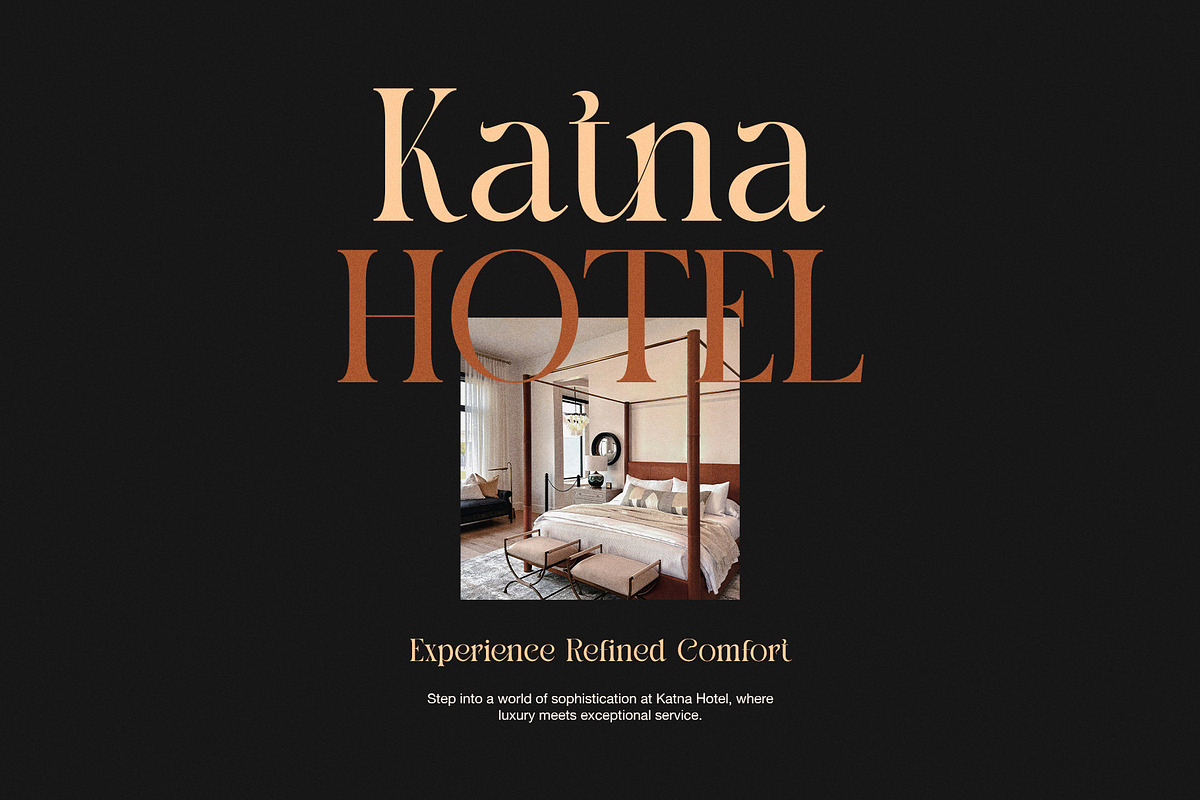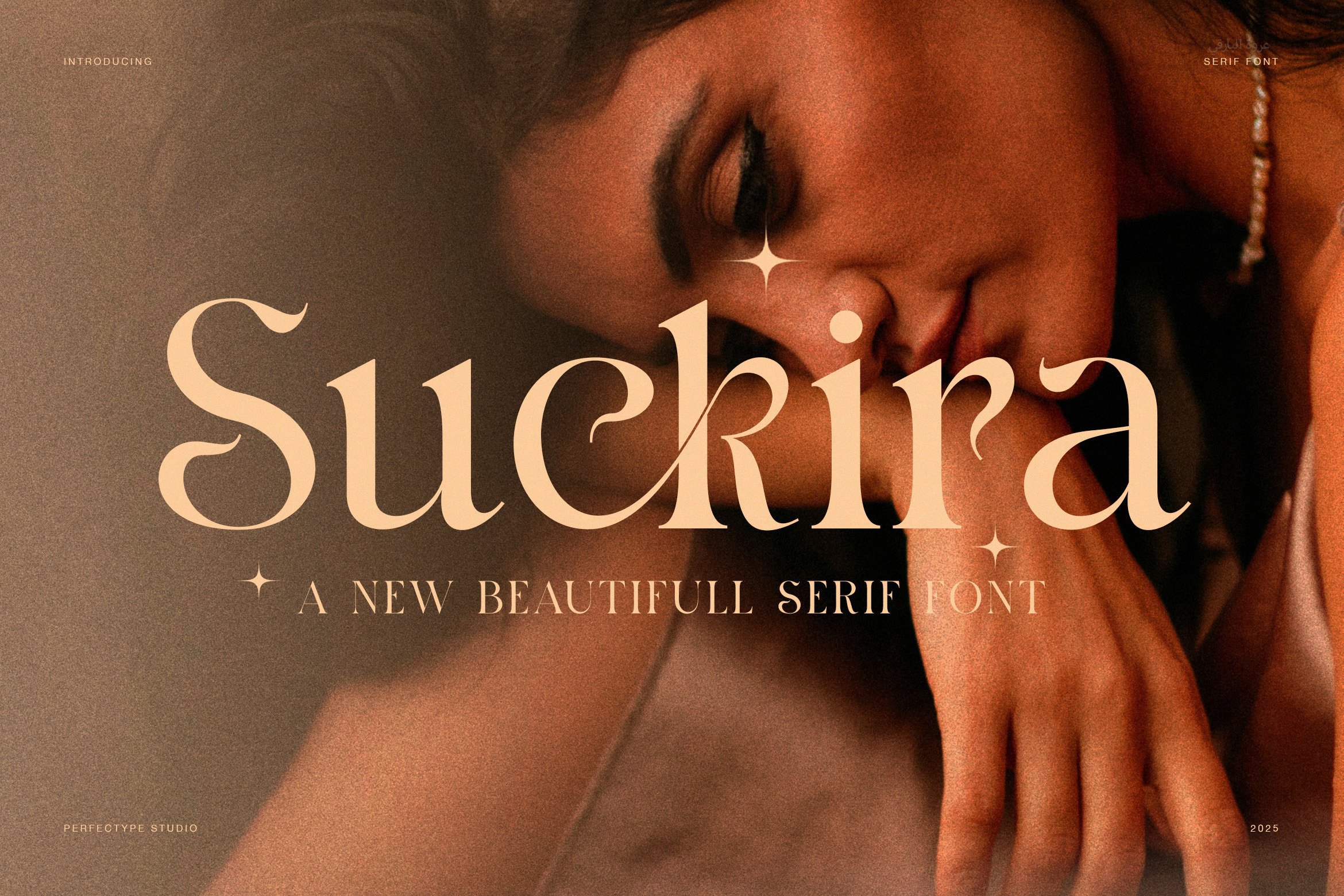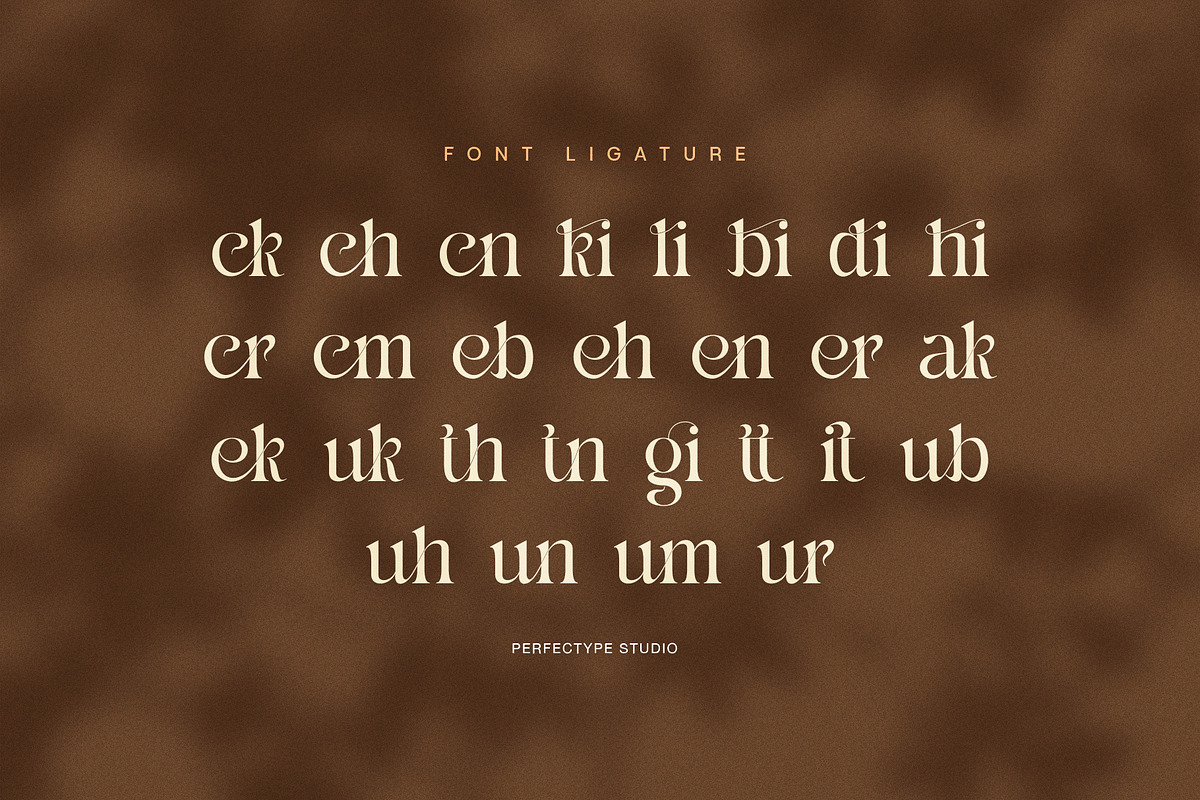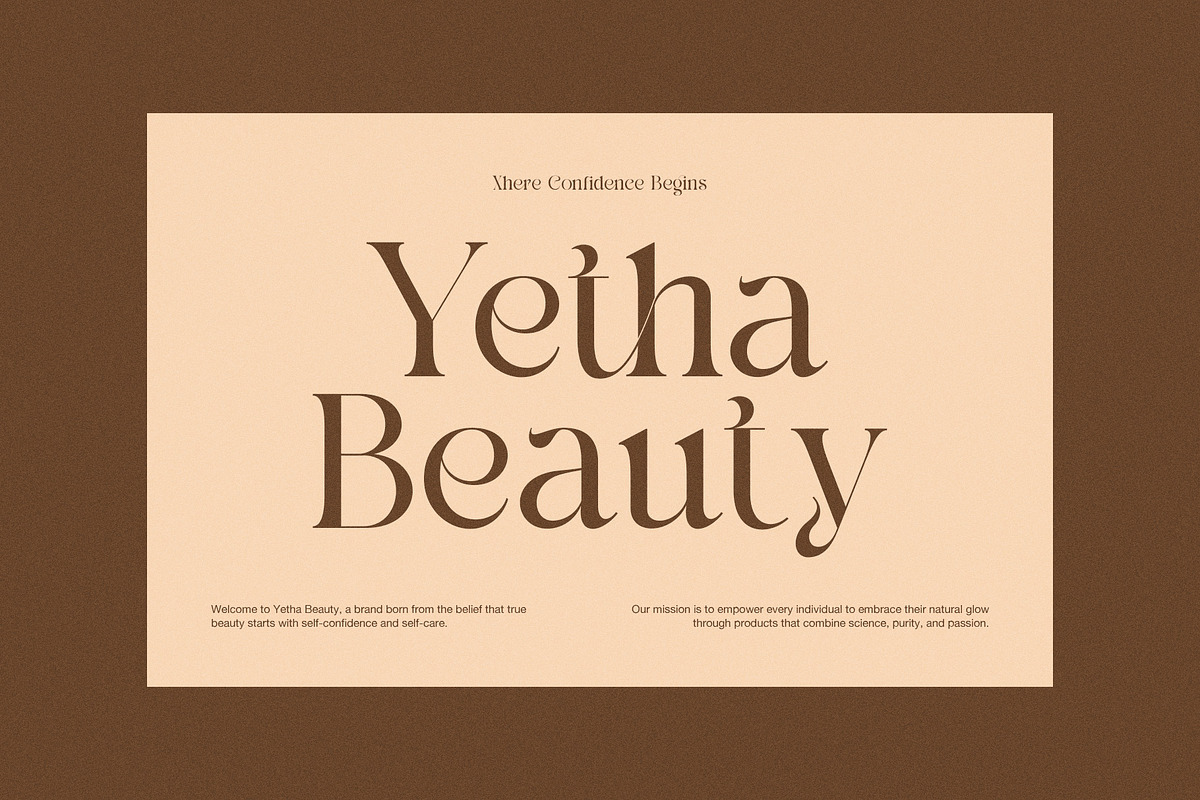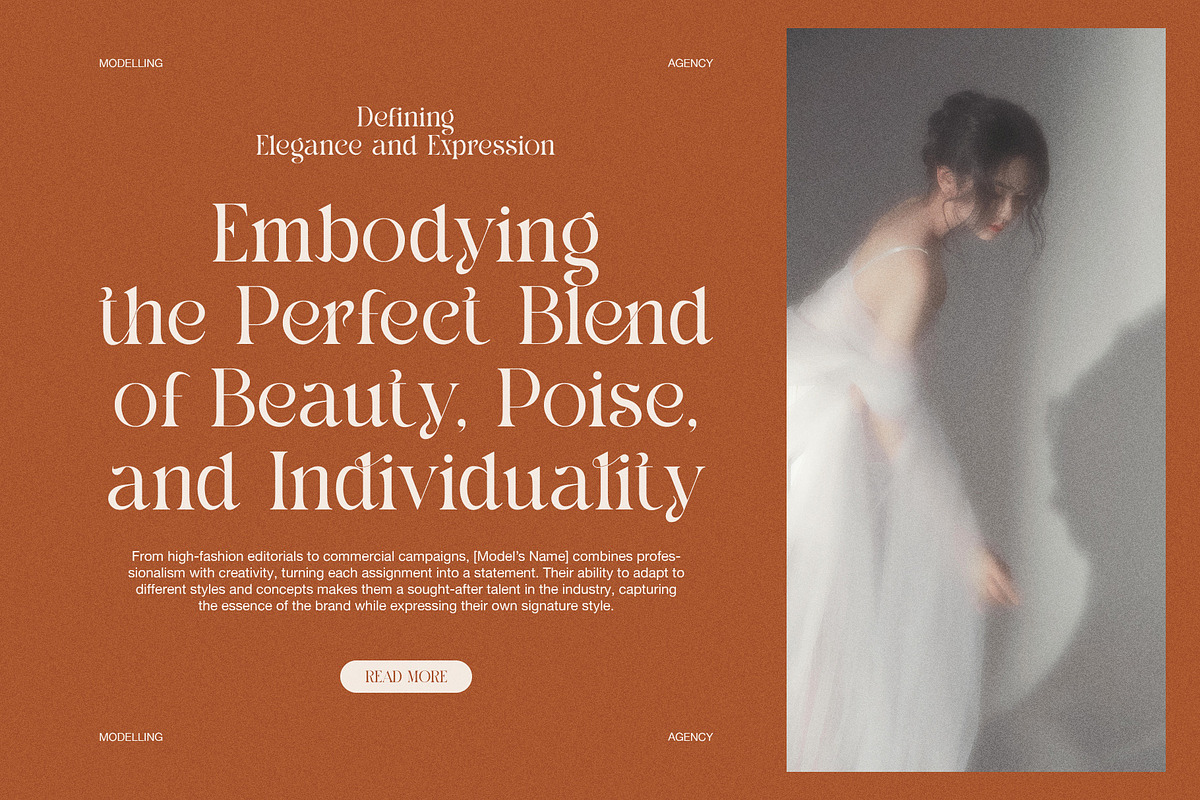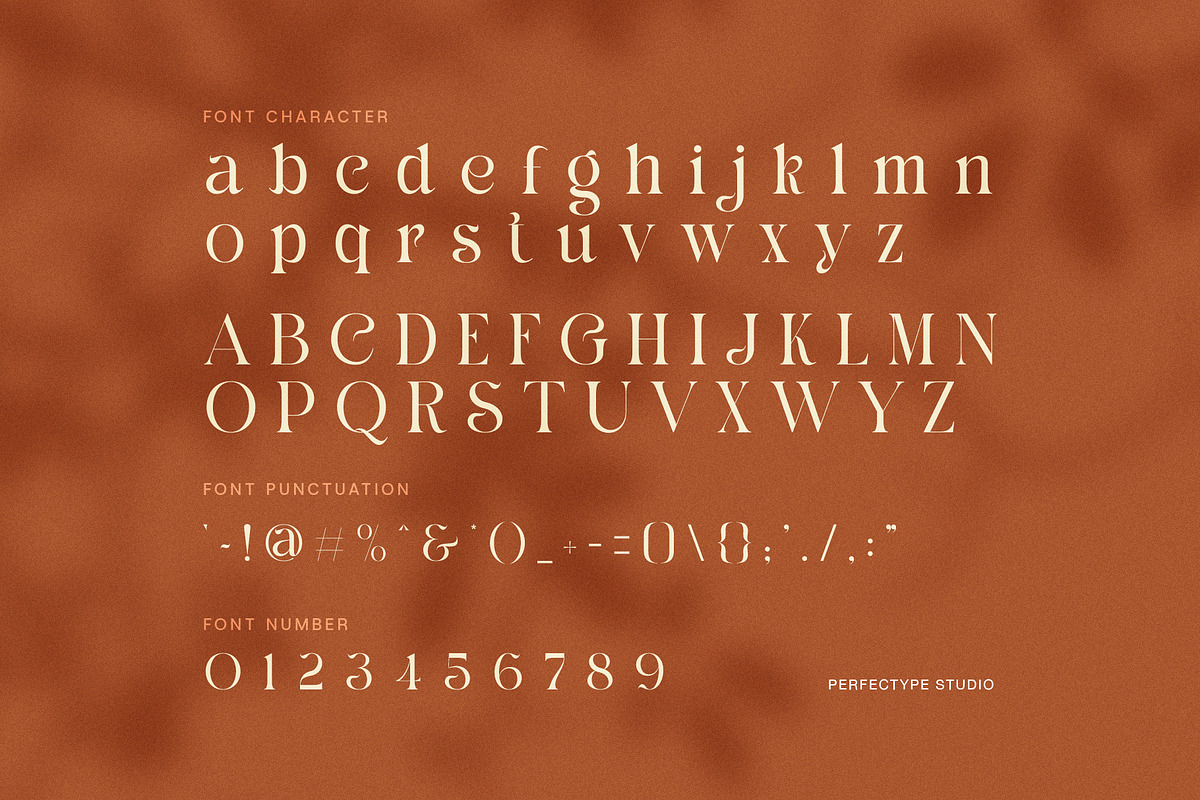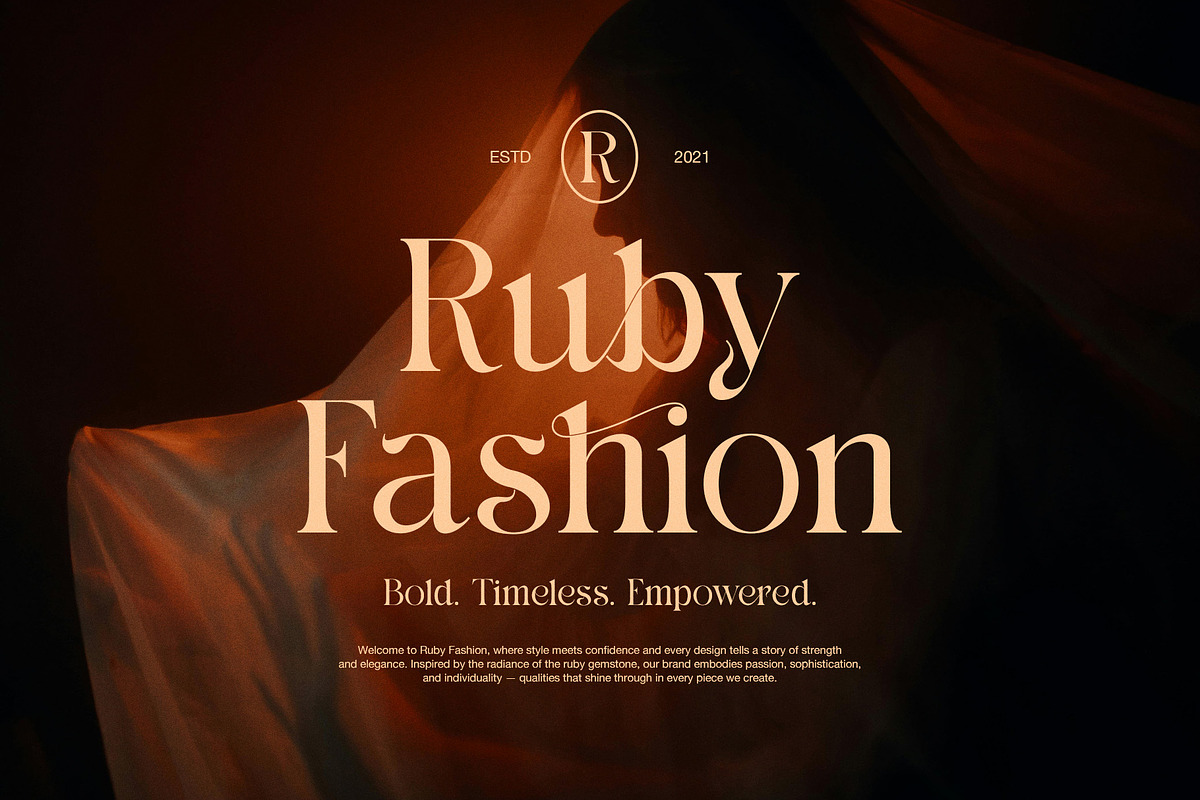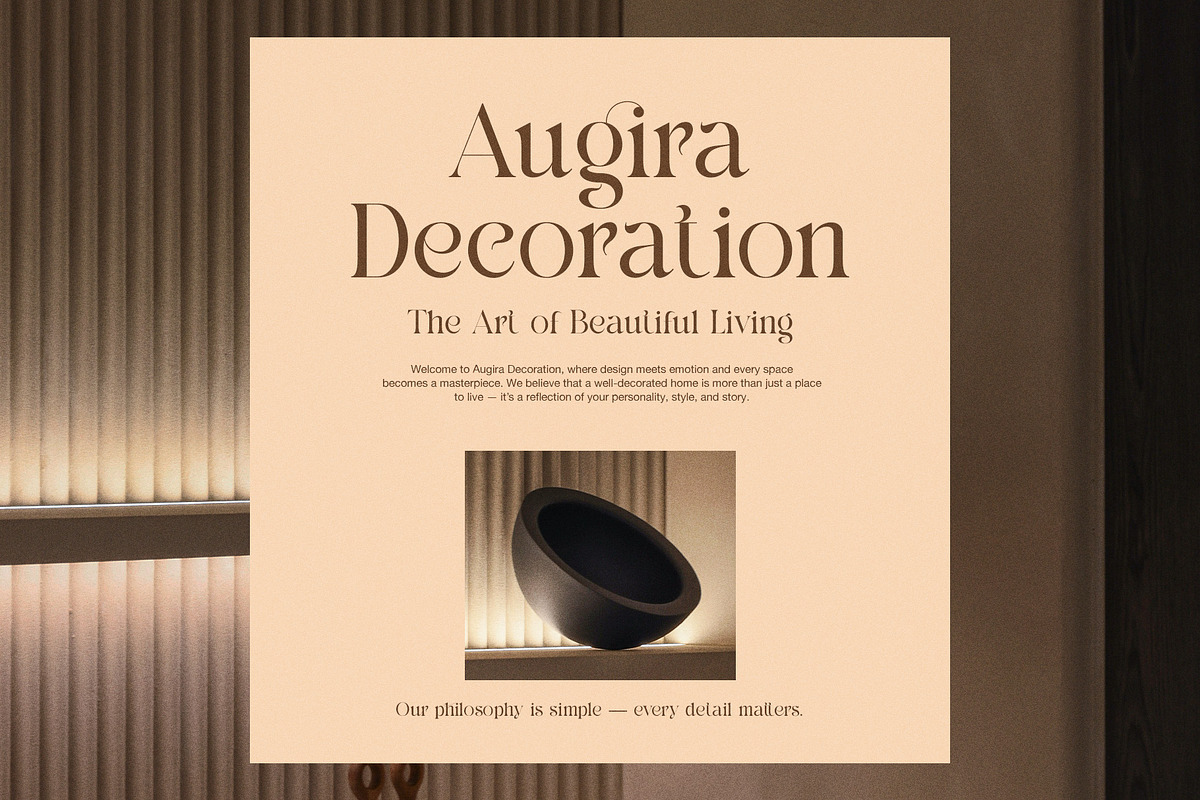
Suckira – Modern Elegant Serif Font
Suckira is a modern elegant serif font that blends timeless charm with expressive beauty. Each letter flows with confidence and grace, creating a sense of refinement in every design. Designed for artists and brands who value elegance and personality, this serif typeface delivers both character and sophistication.
Suckira brings warmth and modernity together. Its smooth curves and balanced strokes give every word a unique identity. Because of its natural rhythm and stylish flair, this font feels perfect for branding, editorial work, invitations, and packaging. In addition, it enhances visual harmony across different design concepts, making it a versatile choice for creative professionals.
You can use Suckira to create elegant logos, wedding stationery, magazine layouts, and beauty branding. It looks striking in both large titles and subtle text. When used in fashion or cosmetic packaging, it adds an effortless sense of luxury. Furthermore, Suckira performs beautifully in digital and print media, helping every project stand out with a modern artistic touch.
Key features include:
Uppercase and lowercase letters
Numerals and punctuation
Stylish ligatures and alternates
Multilingual language support
Every glyph was designed to create balance, movement, and readability. Because of its smooth lines and fine details, Suckira gives your typography an elegant rhythm. It transforms ordinary words into refined statements filled with emotion.
Choose Suckira Serif Font when you want to express sophistication, confidence, and modern beauty. It doesn’t just decorate text — it tells a story through design, giving your brand or artwork a luxurious, timeless impression that feels human, warm, and unforgettable.